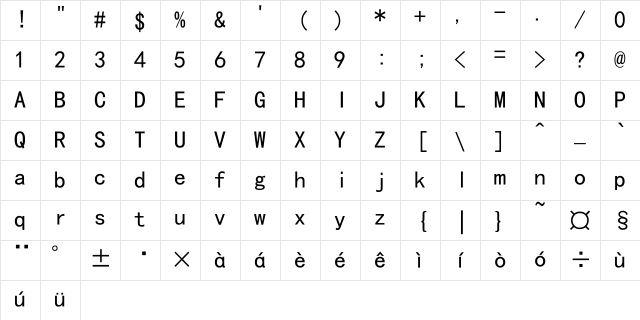
Complete SimHei Regular glyph index. Displaying only characters natively supported by SimHei Regular font.
SimHei is a composed and adaptable typeface that performs quietly and consistently across a wide range of design contexts.